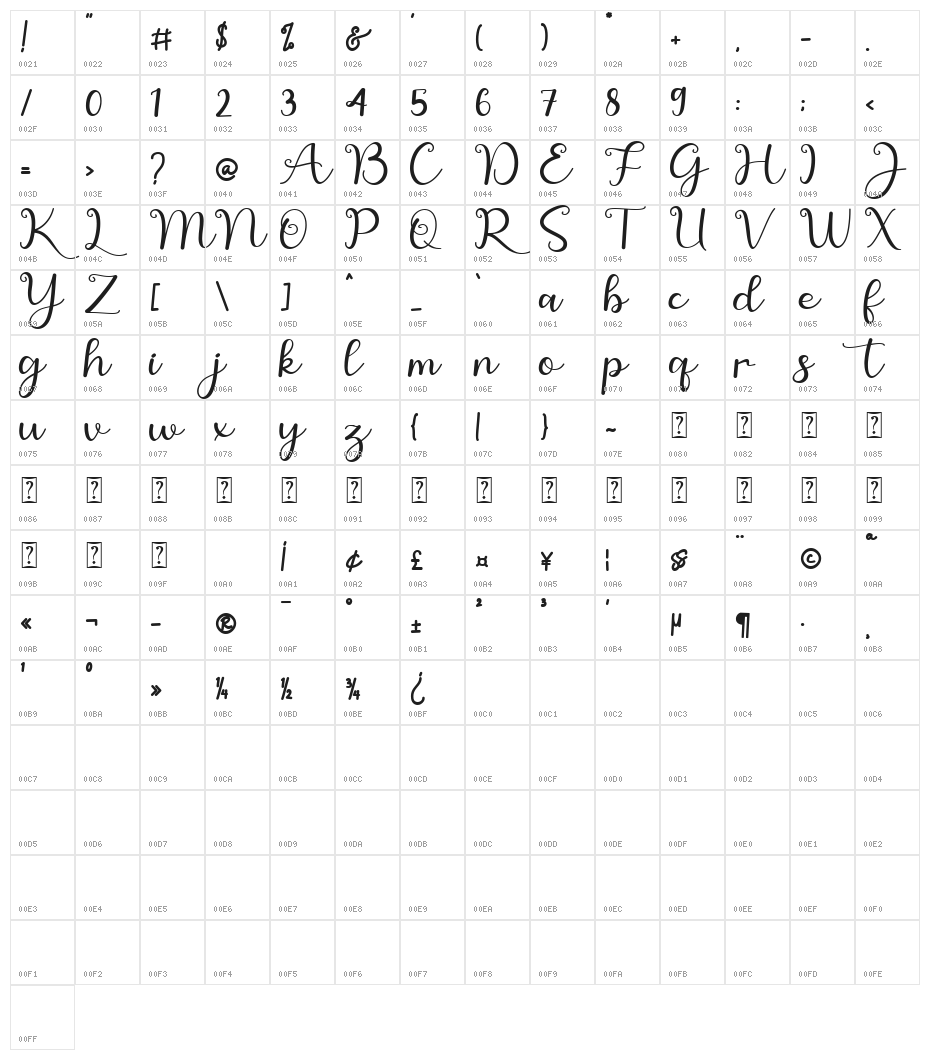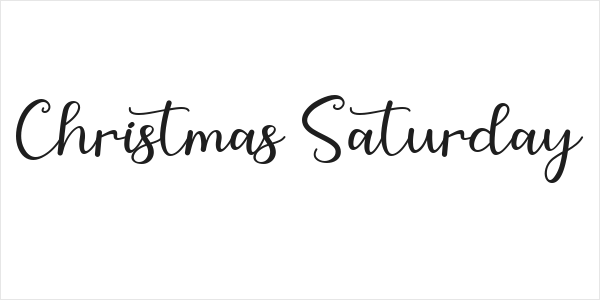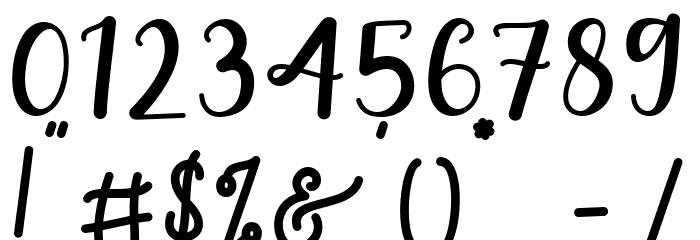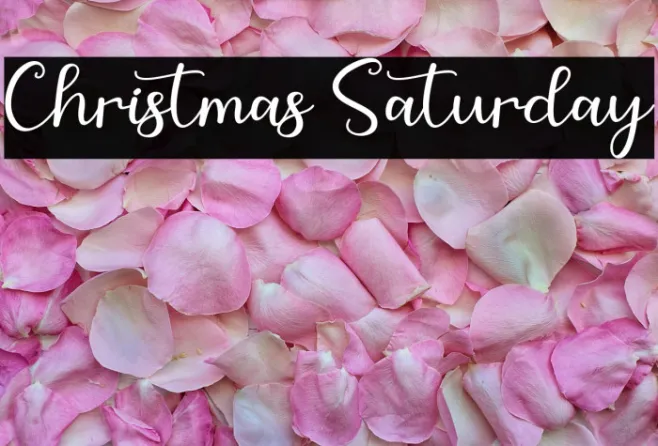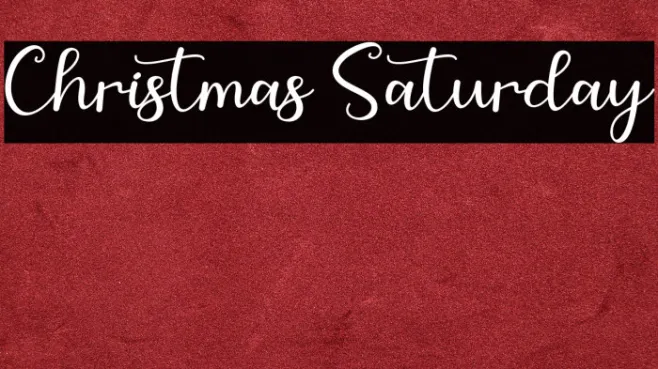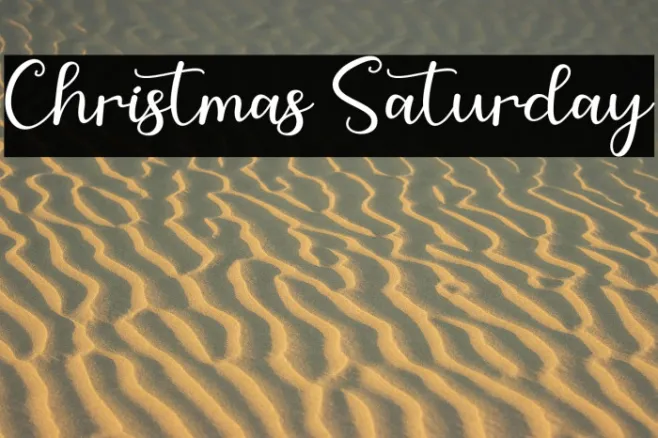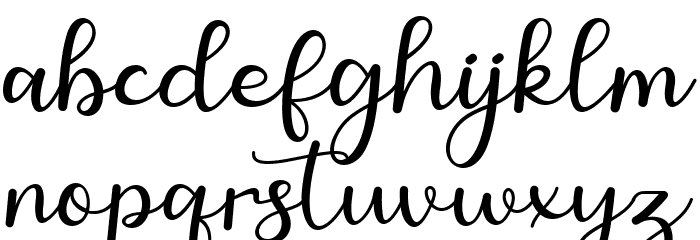
Christmas Saturday Font
Christmas Saturday Description
This font features a whimsical and elegant script style, characterized by flowing, interconnected letters that evoke a sense of charm and playfulness. The uppercase letters are ornate with delicate loops and curls, while the lowercase letters maintain a consistent, smooth flow. The numerals are distinct, with a slight slant that complements the overall script style. Special characters are designed with the same attention to detail, ensuring they blend seamlessly with the alphabet. This font exudes a festive and joyful vibe, making it ideal for celebratory occasions.
| Use Case | Headlines, Invitations, Decorative text |
| Proposed Projects | Ideal for holiday cards, wedding invitations, festive banners, and decorative signage. |